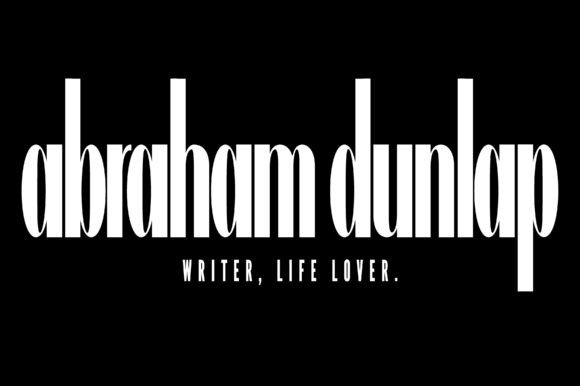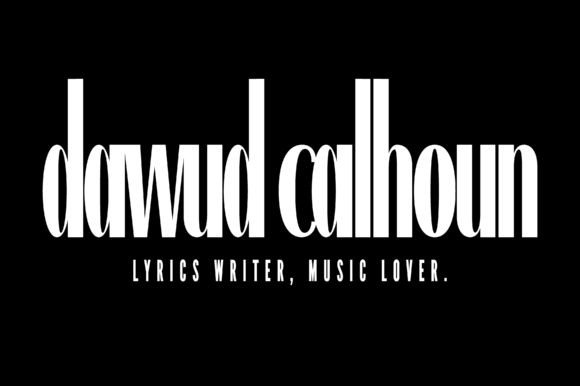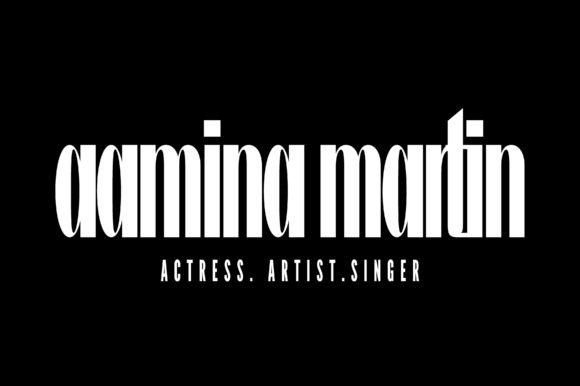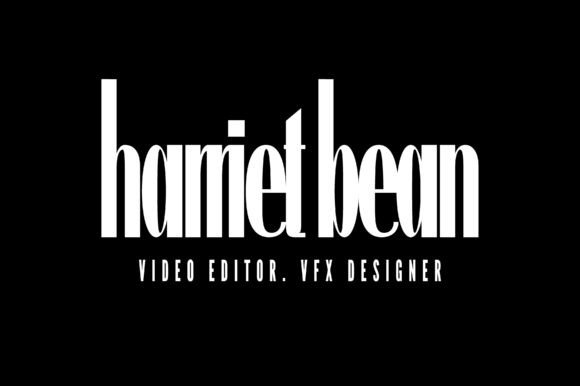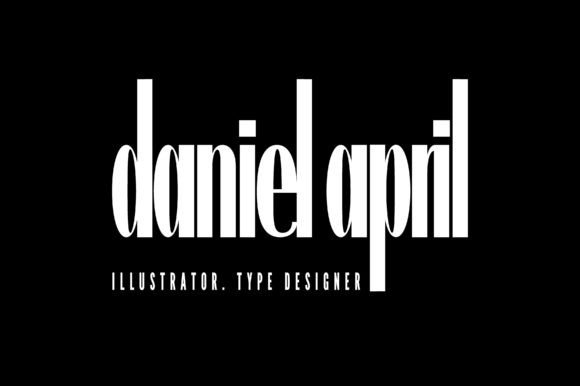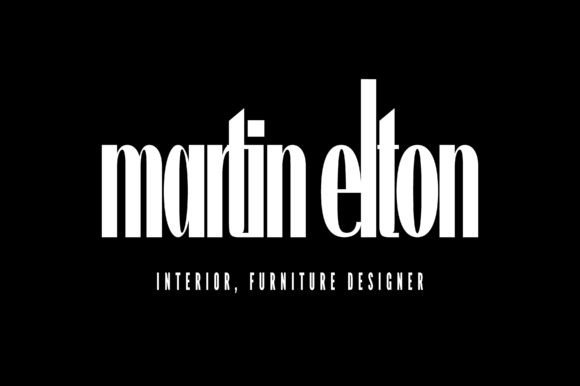
Introduction to Quinb Font
Quinb is the minimalist, condensed, and tall sans serif font that is guaranteed to take your design projects to the next level.
This font is the epitome of simplicity, sophistication, and elegance, making it perfect for a wide range of design projects, from branding and advertising to web design and packaging .
Key Features of Quinb Font
Why Choose Quinb Font?
Quinb Font offers exceptional quality and versatility, making it a valuable addition to your design toolkit. Whether you’re creating for personal projects or commercial use, Quinb Font delivers professional results.